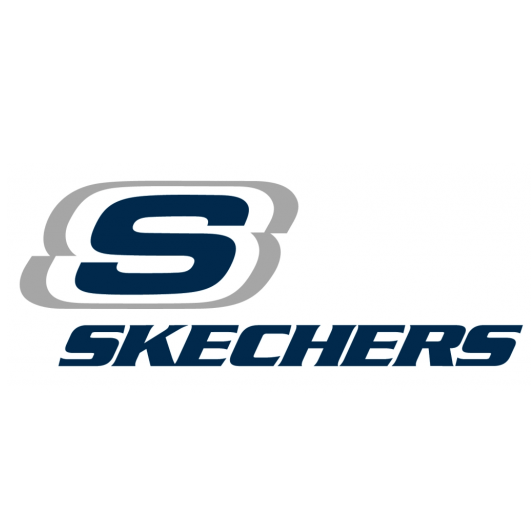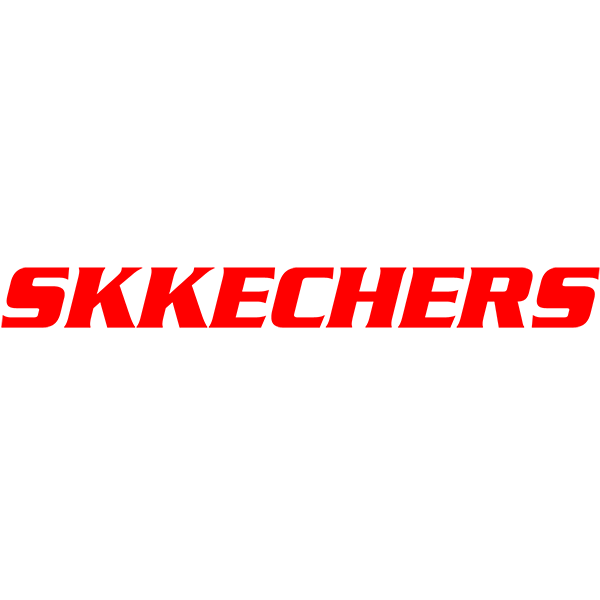
Skechers Logo Font Free Download . Download free skechers vector logo and icons in png, svg, ai, eps, cdr formats. The letters have been meticulously designed to appear dynamic and active. Info about the font replicating the skechers logo and many more free for download at the original famous fonts! Is an american lifestyle and performance footwear company. The font used for skechers logo is serpentine bold oblique, which is a display sans serif font designed by dick jensen and published by adobe. The skechers logo uses a custom typeface, which is another factor that contributes to its unique identity.
The skechers logo uses a custom typeface, which is another factor that contributes to its unique identity. The letters have been meticulously designed to appear dynamic and active. The font used for skechers logo is serpentine bold oblique, which is a display sans serif font designed by dick jensen and published by adobe. Download free skechers vector logo and icons in png, svg, ai, eps, cdr formats. Info about the font replicating the skechers logo and many more free for download at the original famous fonts! Is an american lifestyle and performance footwear company.
Skechers Logo Font Free Download Is an american lifestyle and performance footwear company. The skechers logo uses a custom typeface, which is another factor that contributes to its unique identity. Download free skechers vector logo and icons in png, svg, ai, eps, cdr formats. The letters have been meticulously designed to appear dynamic and active. Info about the font replicating the skechers logo and many more free for download at the original famous fonts! Is an american lifestyle and performance footwear company. The font used for skechers logo is serpentine bold oblique, which is a display sans serif font designed by dick jensen and published by adobe.
Free HighQuality Skechers Logo for Creative Design Skechers Logo Font Free Download Info about the font replicating the skechers logo and many more free for download at the original famous fonts! The letters have been meticulously designed to appear dynamic and active. The skechers logo uses a custom typeface, which is another factor that contributes to its unique identity. Is an american lifestyle and performance footwear company. The font used for skechers. Skechers Logo Font Free Download.
Skechers logo, Vector Logo of Skechers brand free download (eps, ai Skechers Logo Font Free Download Info about the font replicating the skechers logo and many more free for download at the original famous fonts! Download free skechers vector logo and icons in png, svg, ai, eps, cdr formats. The skechers logo uses a custom typeface, which is another factor that contributes to its unique identity. Is an american lifestyle and performance footwear company. The letters. Skechers Logo Font Free Download.
Skechers Logo PNG Vector FREE Vector Design Cdr, Ai, EPS, PNG, SVG Skechers Logo Font Free Download The font used for skechers logo is serpentine bold oblique, which is a display sans serif font designed by dick jensen and published by adobe. Info about the font replicating the skechers logo and many more free for download at the original famous fonts! The letters have been meticulously designed to appear dynamic and active. Is an american lifestyle and. Skechers Logo Font Free Download.
Skechers PNG Transparent Skechers.PNG Images. PlusPNG Skechers Logo Font Free Download The letters have been meticulously designed to appear dynamic and active. Is an american lifestyle and performance footwear company. Download free skechers vector logo and icons in png, svg, ai, eps, cdr formats. Info about the font replicating the skechers logo and many more free for download at the original famous fonts! The font used for skechers logo is serpentine. Skechers Logo Font Free Download.
Skechers Logos Skechers Logo Font Free Download The skechers logo uses a custom typeface, which is another factor that contributes to its unique identity. Info about the font replicating the skechers logo and many more free for download at the original famous fonts! The font used for skechers logo is serpentine bold oblique, which is a display sans serif font designed by dick jensen and published by. Skechers Logo Font Free Download.
skechers logo png 10 free Cliparts Download images on Clipground 2024 Skechers Logo Font Free Download The skechers logo uses a custom typeface, which is another factor that contributes to its unique identity. The letters have been meticulously designed to appear dynamic and active. Info about the font replicating the skechers logo and many more free for download at the original famous fonts! Is an american lifestyle and performance footwear company. Download free skechers vector logo. Skechers Logo Font Free Download.
Skechers Text Effect and Logo Design Brand Skechers Logo Font Free Download The letters have been meticulously designed to appear dynamic and active. The font used for skechers logo is serpentine bold oblique, which is a display sans serif font designed by dick jensen and published by adobe. Is an american lifestyle and performance footwear company. Download free skechers vector logo and icons in png, svg, ai, eps, cdr formats. Info about. Skechers Logo Font Free Download.
The Skechers Logo History, Colors, Font, and Meaning Skechers Logo Font Free Download Info about the font replicating the skechers logo and many more free for download at the original famous fonts! The skechers logo uses a custom typeface, which is another factor that contributes to its unique identity. The font used for skechers logo is serpentine bold oblique, which is a display sans serif font designed by dick jensen and published by. Skechers Logo Font Free Download.